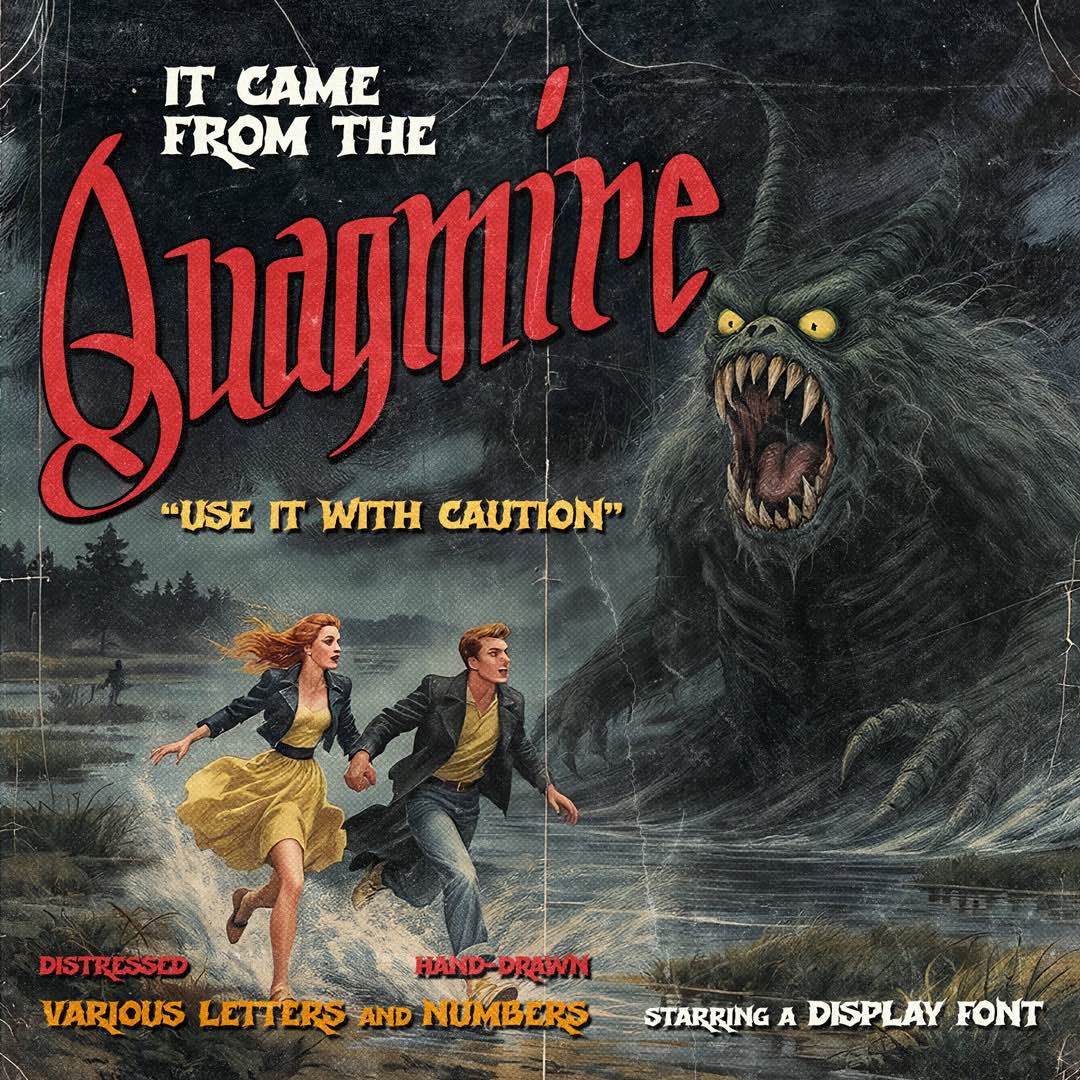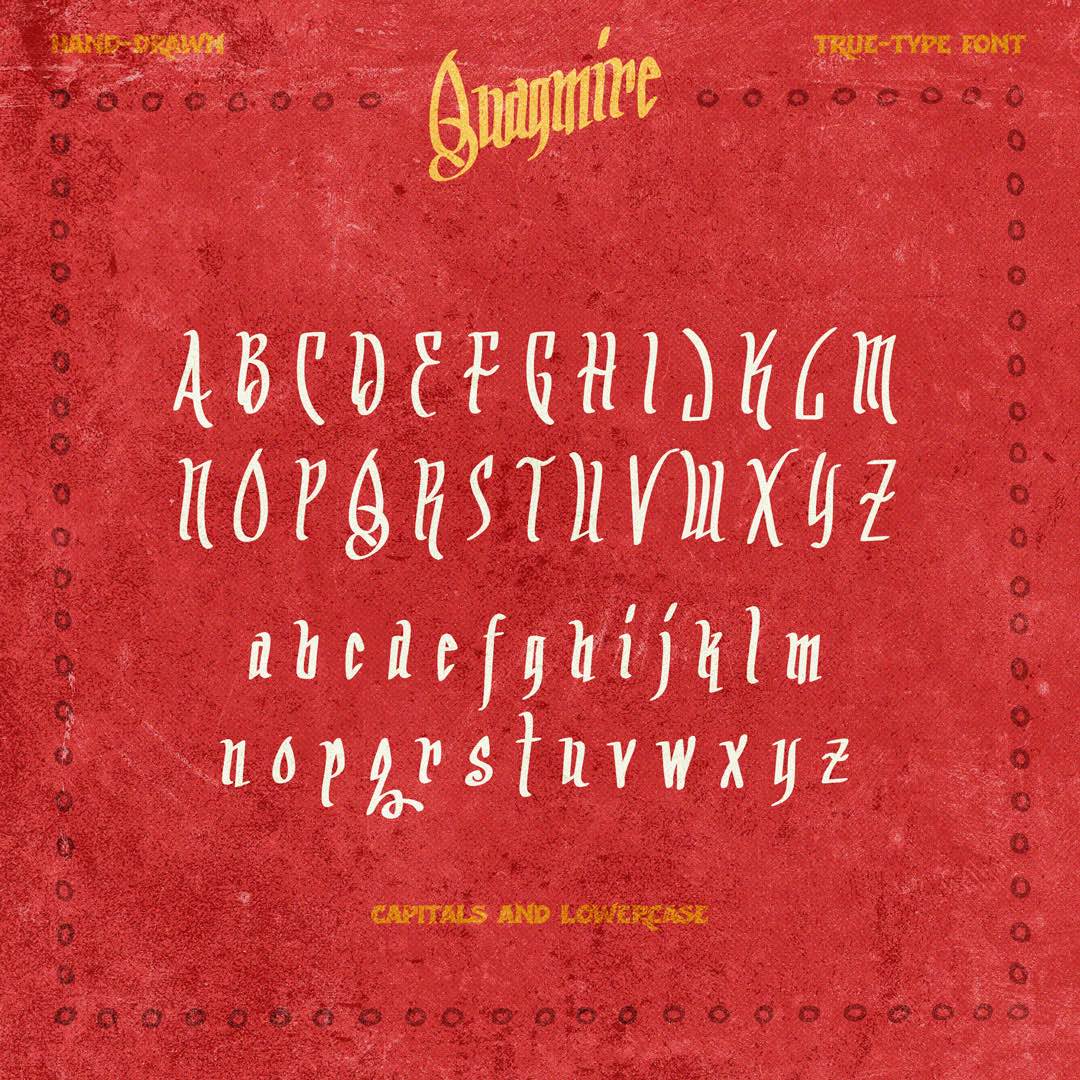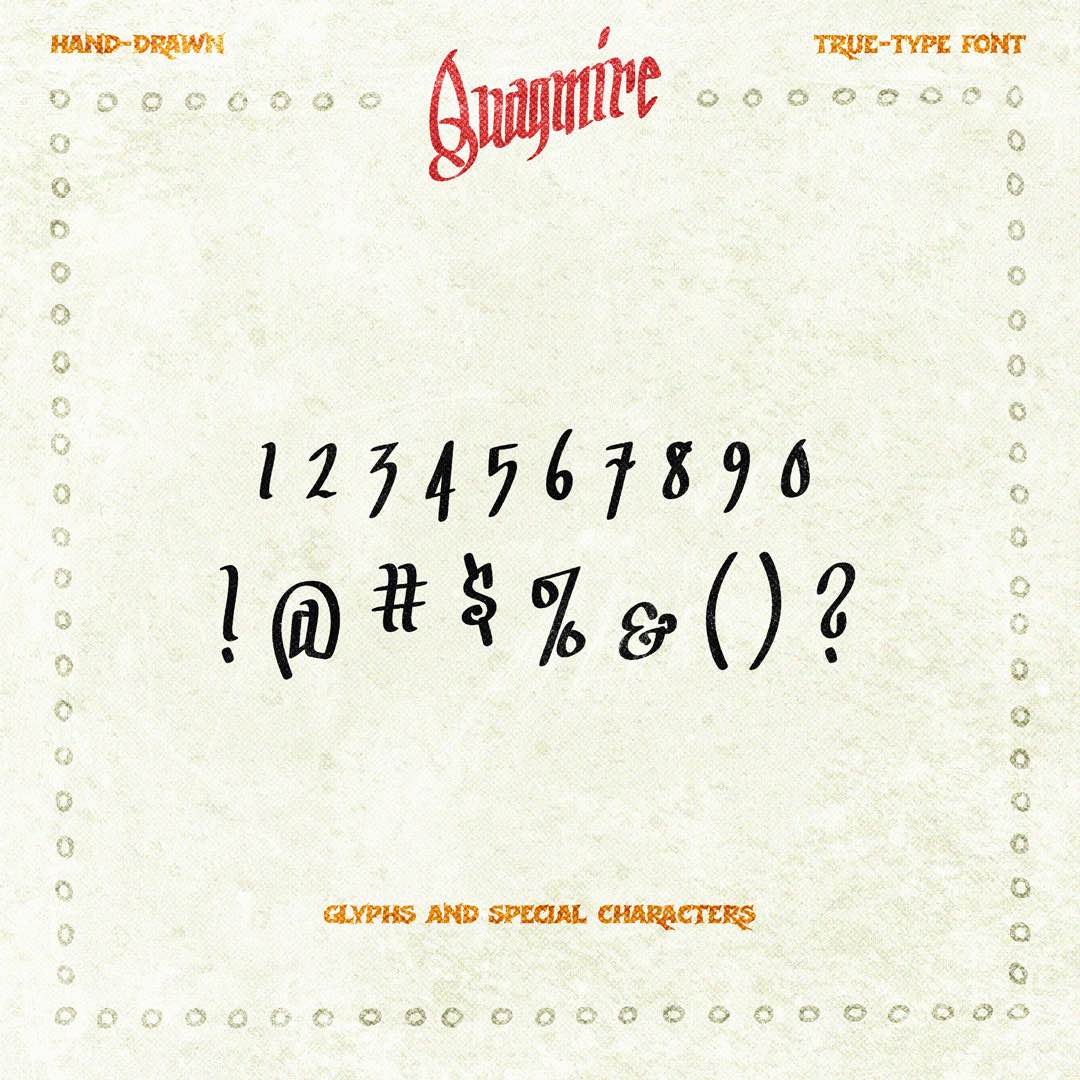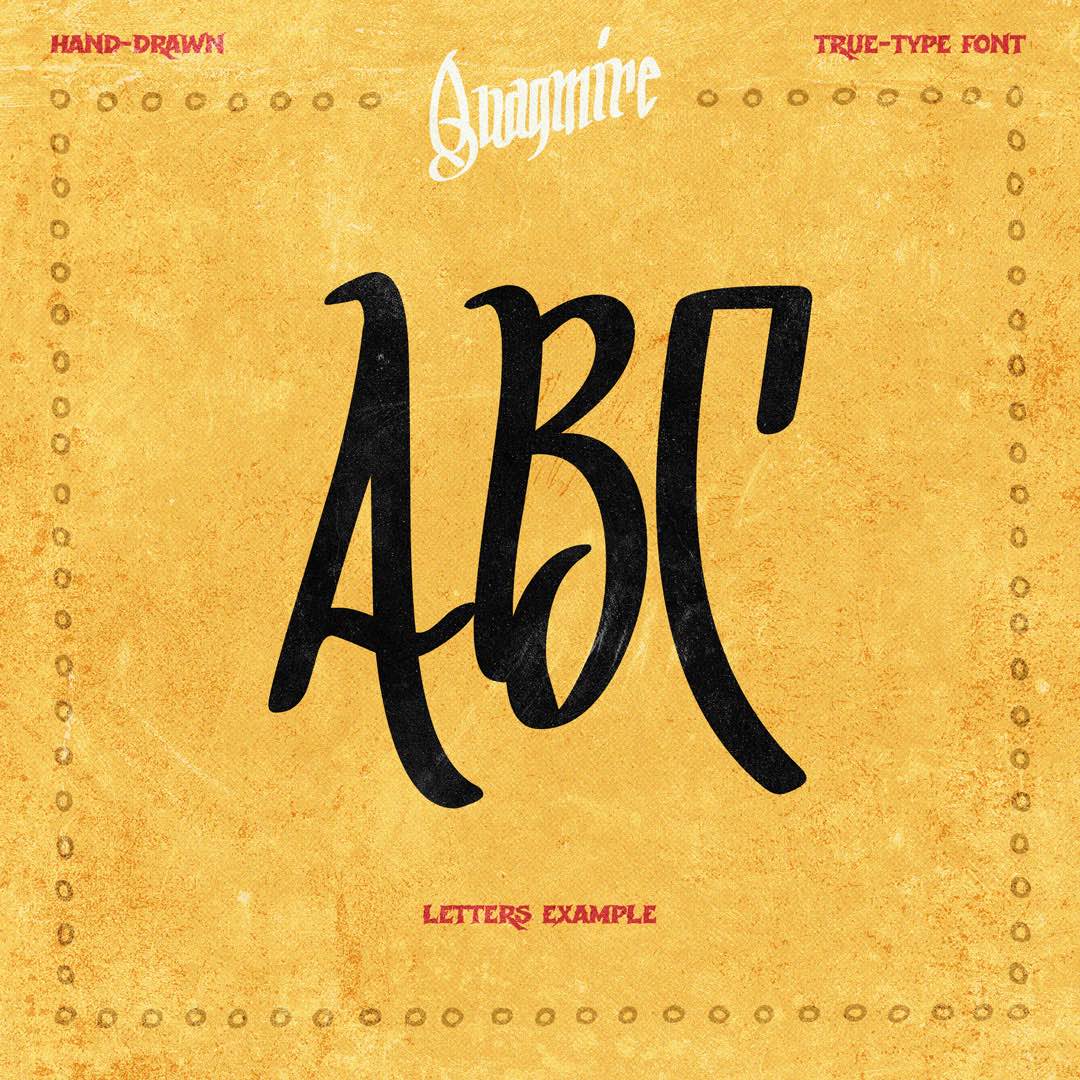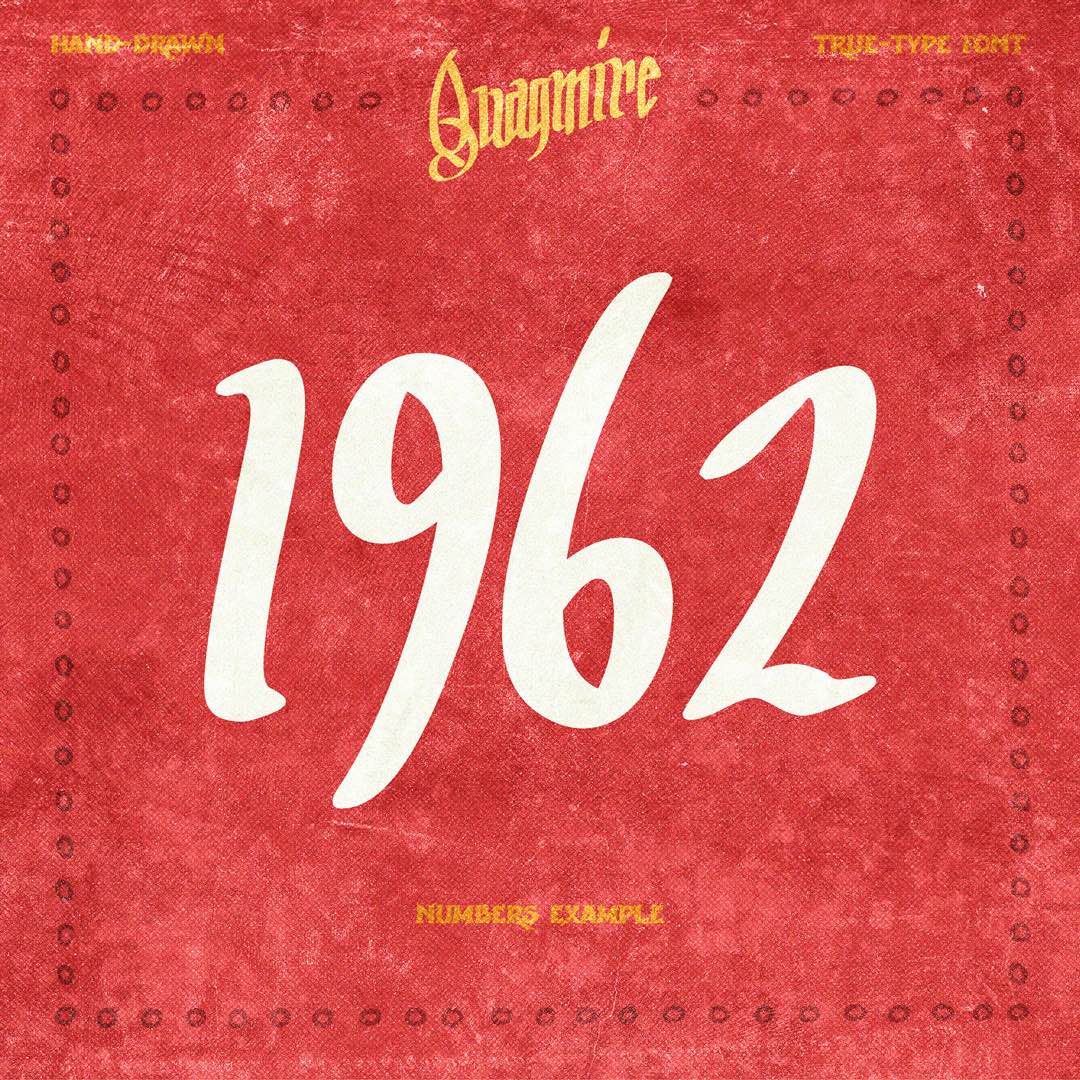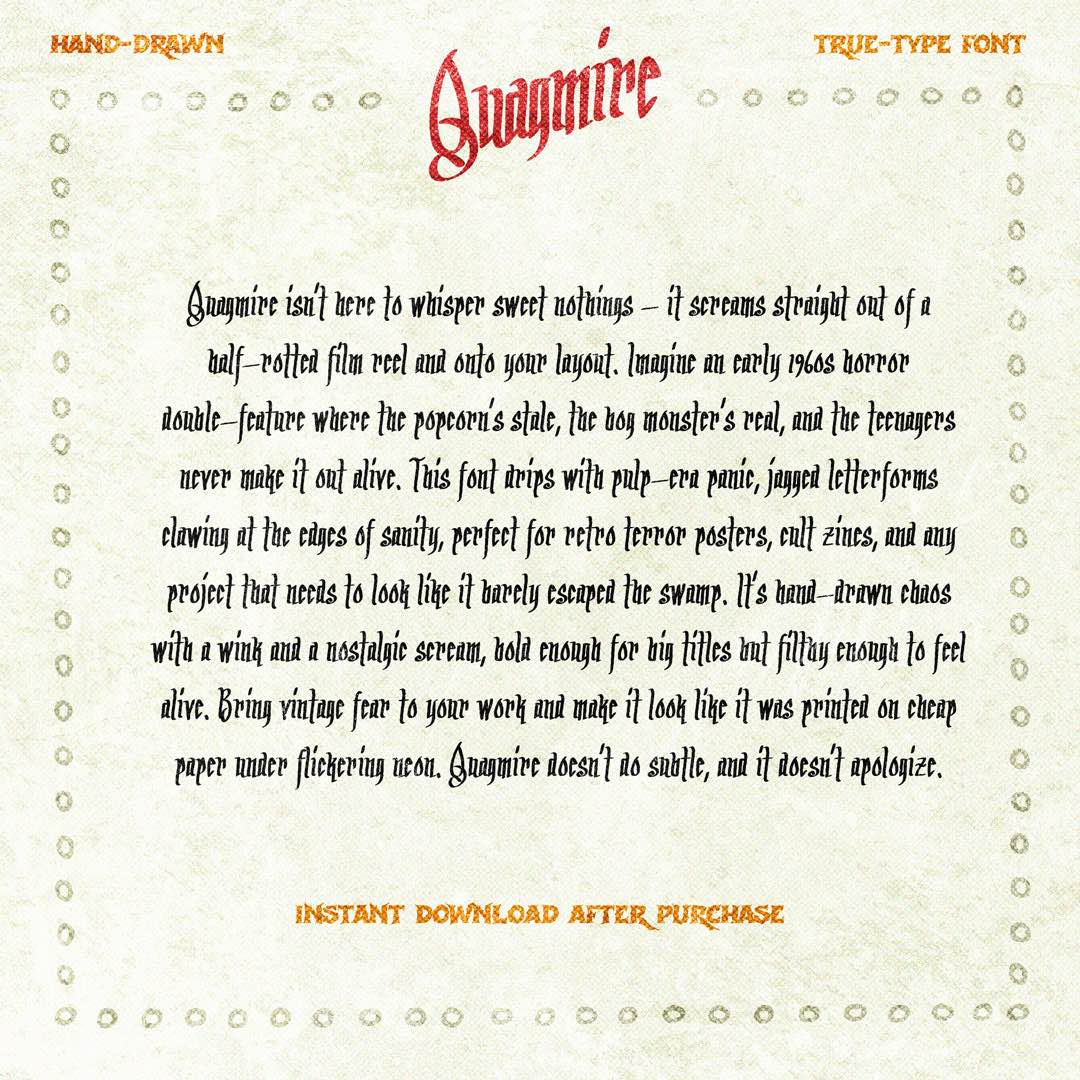
Quagmire isn’t here to whisper sweet nothings, it screams straight out of a half‑rotted film reel and onto your layout. Imagine a 1950s horror double‑feature where the popcorn’s stale, the bog monster’s real, and the teenagers never make it out alive.
This font drips with pulp-era panic, jagged letterforms clawing at the edges of sanity, perfect for retro terror posters, cult zines, and any project that needs to look like it barely escaped the swamp.
It’s hand‑drawn chaos with a wink, a nostalgic scream, bold enough for big titles but filthy enough to feel alive. Bring vintage fear to your work and make it look like it was printed on cheap paper under flickering neon. Quagmire doesn’t do subtle, and it doesn’t apologize.